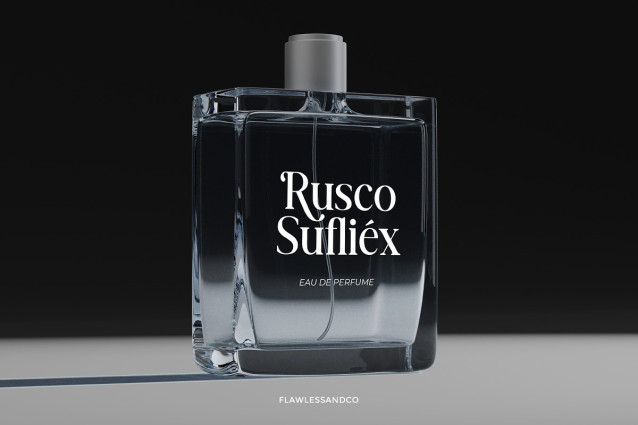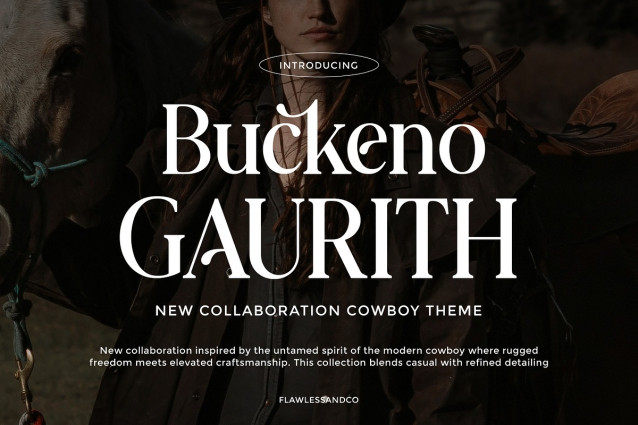
Not Reality Font
Not Reality Font is a stylish retro serif font that blends timeless elegance with bold vintage character. Designed to deliver a strong yet refined impression, this font features classic serif details, smooth curves, and expressive letterforms that make every design feel nostalgic, luxurious, and memorable.